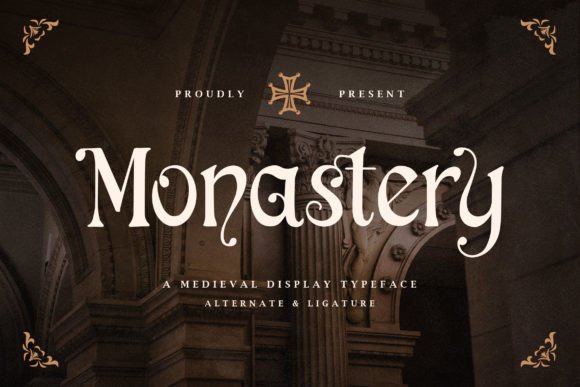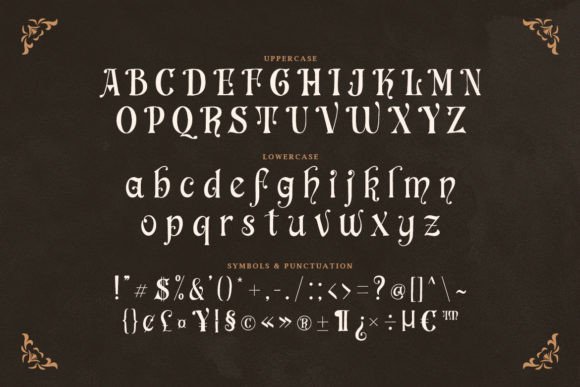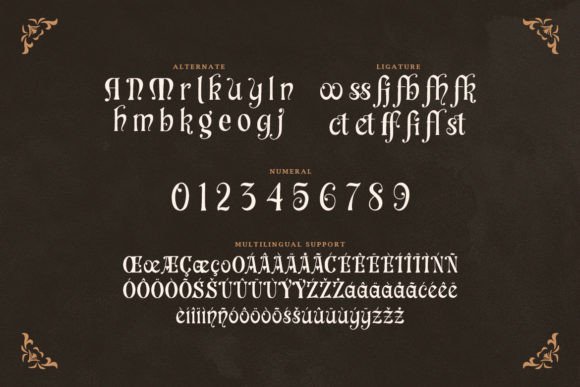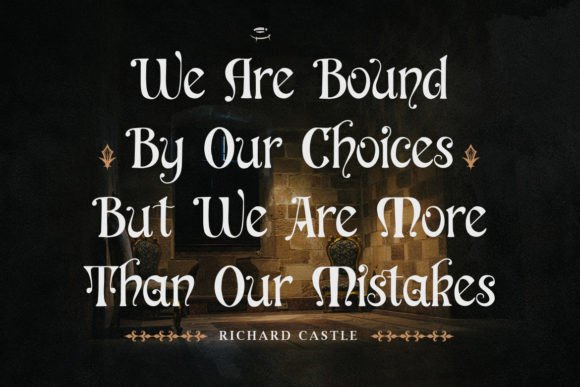
Monastery Font: Unique Medieval Display Font for Creative Designs
About the Monastery Font
Welcome to the world of Monastery Font, a typeface that will inspire your next great project. Monastery is a fun and interesting display font with a unique, medieval vibe.
Inspired by a medieval Gothic-looking letter type, this font will be suitable for all your historical-themed projects.
Monastery excels as a display font for headlines, titles, and short text blocks in posters, invitations, and branding materials for projects with a historical, medieval, or fantasy theme. Its distinctive character also works well for logos needing a strong, memorable presence. However, its intricate details and relatively large x-height make it unsuitable for body text or UI elements where legibility at smaller sizes is crucial. Long paragraphs set in Monastery would be difficult to read.
Pairing Monastery effectively requires considering its strong personality. A clean, geometric sans-serif like Futura or a neutral serif like Garamond offers a sophisticated counterpoint, balancing the font’s medieval flair with modern readability. For a more playful approach, a rounded sans-serif such as Bebas Neue could create a striking contrast. Avoid pairing it with other highly decorative or ornate typefaces, as this could overwhelm the design.
The overall personality of Monastery is bold and dramatic, conveying a sense of history and gravitas. It’s best suited to projects that require a strong visual impact and a touch of the unconventional, while still maintaining a sense of refined elegance.